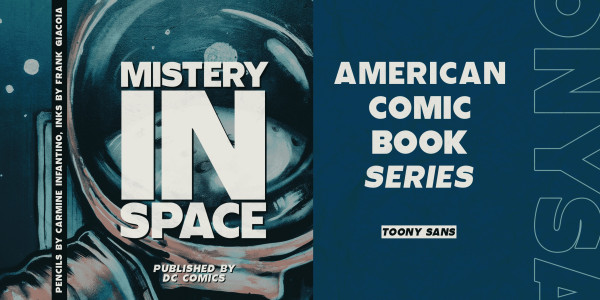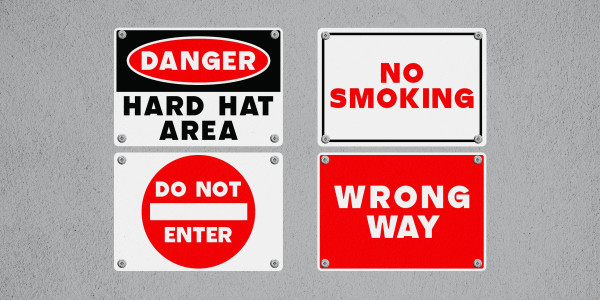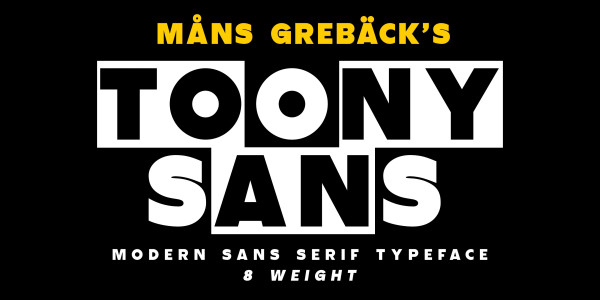
Toony Sans Font
Toony Sans Font, a modern interpretation of classic typography. A nod to beloved animations, its crisp, sans-serif form captures an essence of professionalism with just a touch of nostalgic charm.